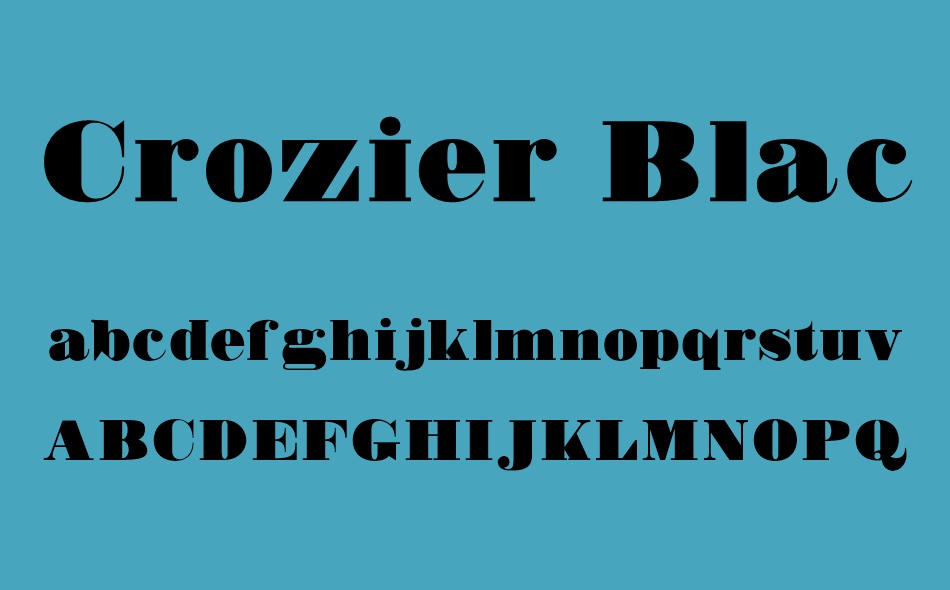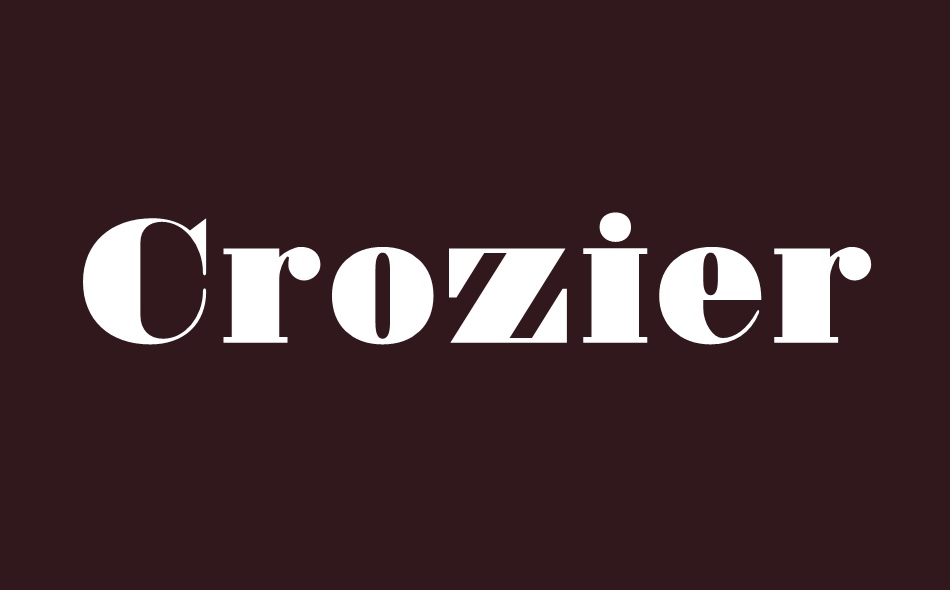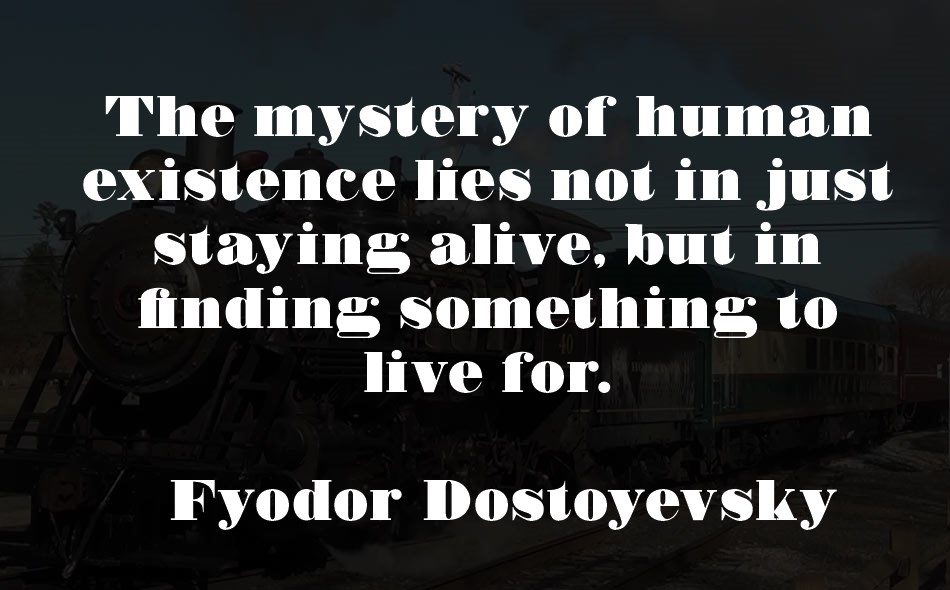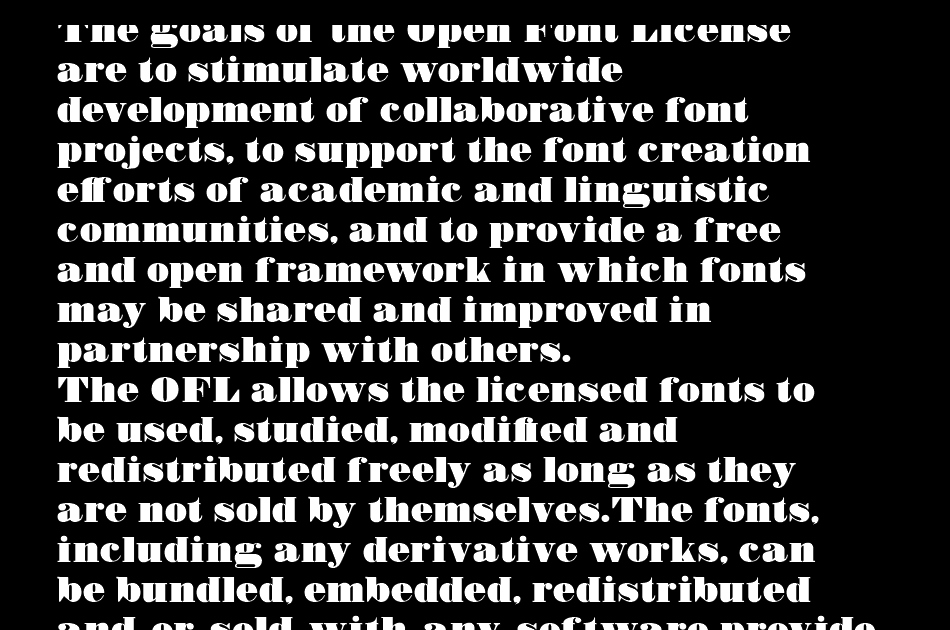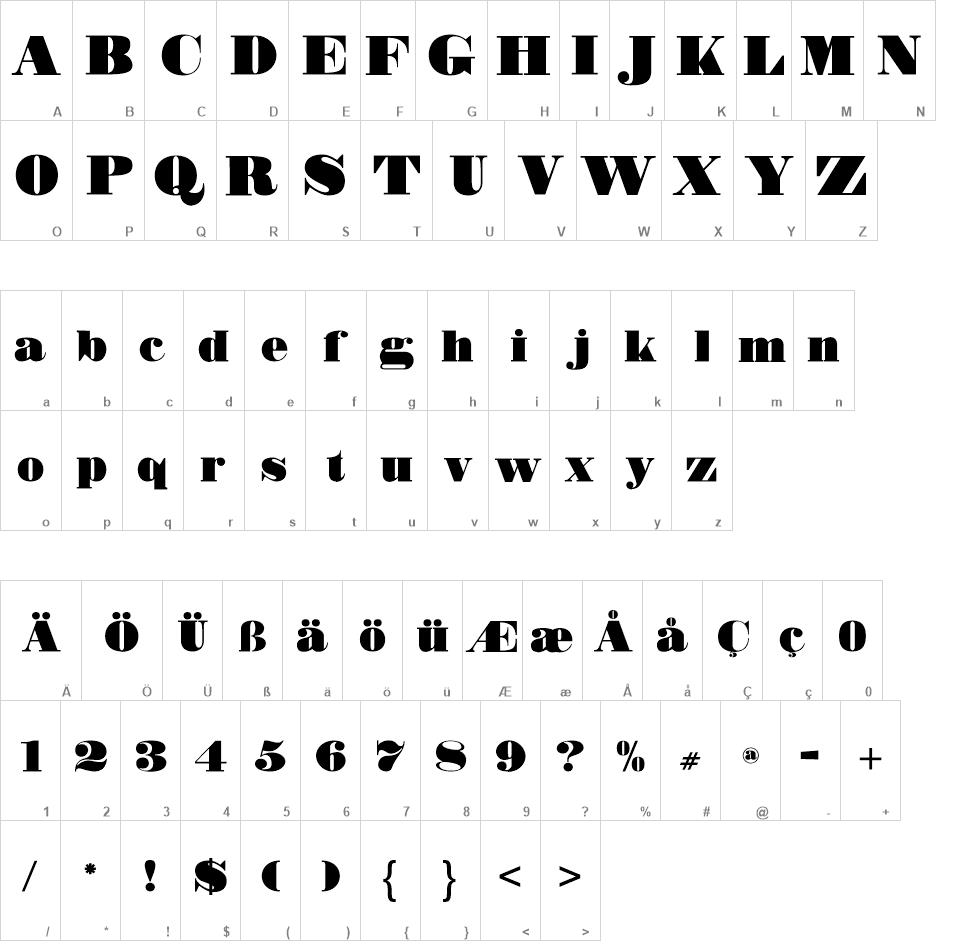
Crozier Black CF font
CROZIER is a revival of a 19th century woodblock font found in Hauptprobe in gedrngter Form der bauerschen Giesserei Frankfurt am Main. (That is, Bavarian Foundrys Condensed Specimen Book, Frankfurt am Main). No copyright date is provided, but this foundry was established in 1837 according to the title page. I chose to retain the unusual form of some glyphs (for example, the lower case g) to conform to 19th century aesthetics. CROZIER would be very useful in Vintage-Modern designs as well as for posters, titles, greeting cards and work that needs a woodblock or American West feel.
CROZIER has 333 glyphs and supports Afrikaans, Albanian, Asu, Basque, Bemba, Bena, Bosnian, Catalan, Cebuano, Chiga, Colognian, Cornish, Corsican, Croatian, Czech, Danish, Dutch, English, Estonian, Faroese, Filipino, Finnish, French, Friulian, Galician, Ganda, German, Gusii, Hungarian, Icelandic, Ido, Inari Sami, Indonesian, Interlingua, Irish, Italian, Javanese, Jju, Jola-Fonyi, Kabuverdianu, Kalaallisut, Kalenjin, Kinyarwanda, Kurdish, Latvian, Lithuanian, Lojban, Low German, Lower Sorbian, Luo, Luxembourgish, Luyia, Machame, Makhuwa-Meetto, Makonde, Malagasy, Malay, Maltese, Manx, Maori, Morisyen, North Ndebele, Northern Sami, Northern Sotho, Norwegian Bokml, Norwegian Nynorsk, Nyanja, Nyankole, Occitan, Oromo, Polish, Portuguese, Romanian, Romansh, Rombo, Rundi, Rwa, Samburu, Sango, Sangu, Sardinian, Scottish Gaelic, Sena, Shambala, Shona, Slovak, Slovenian, Soga, Somali, South Ndebele, Southern Sotho, Spanish, Swahili, Swati, Swedish, Swiss German, Taita, Taroko, Teso, Tsonga, Tswana, Turkish, Turkmen, Upper Sorbian, Vunjo, Walloon, Welsh, Western Frisian, Wolof, Xhosa, & Zulu.